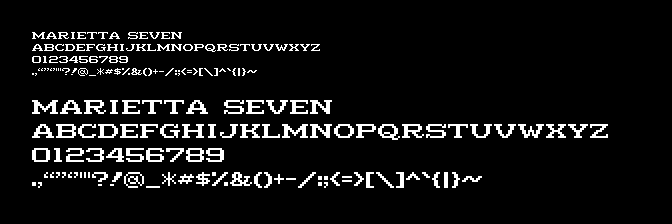
Font name: | Marietta Seven |
Author: | Steve Cochrane |
Note by Steve Cochrane | |
A wide, serifed, 7px-tall pixel font inspired by Clarendon typefaces, made for an NES-style videogame. Intended for font sizes divisible by 8. Pairs well with my other font, Marietta Five. |